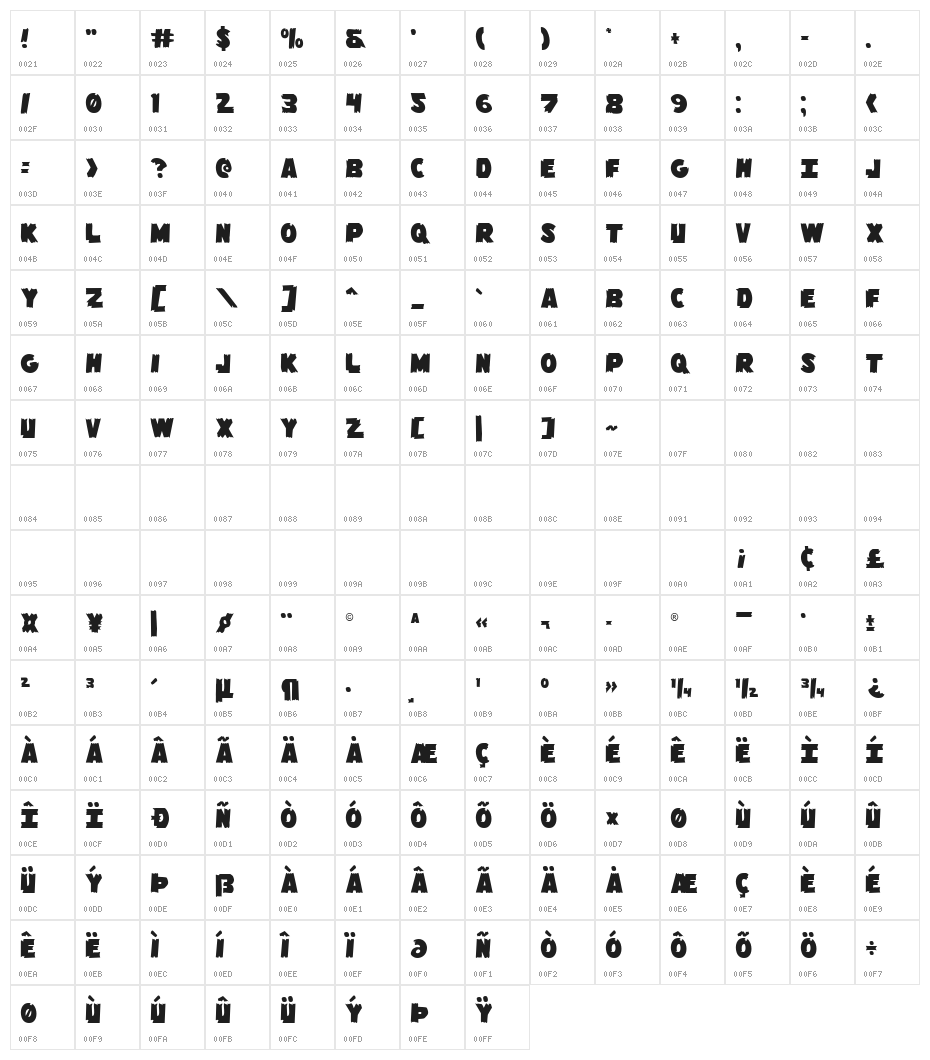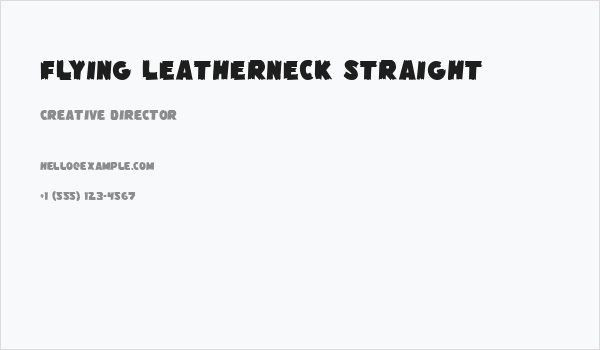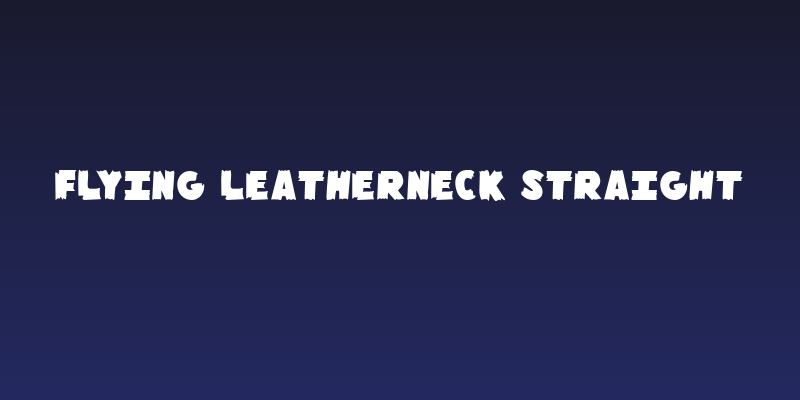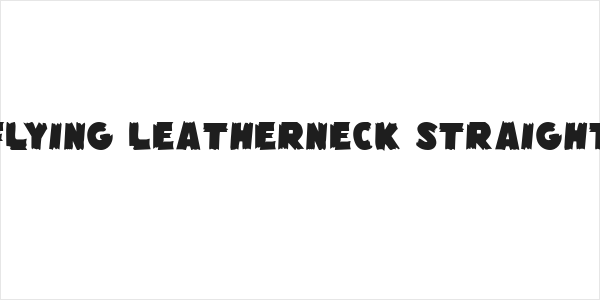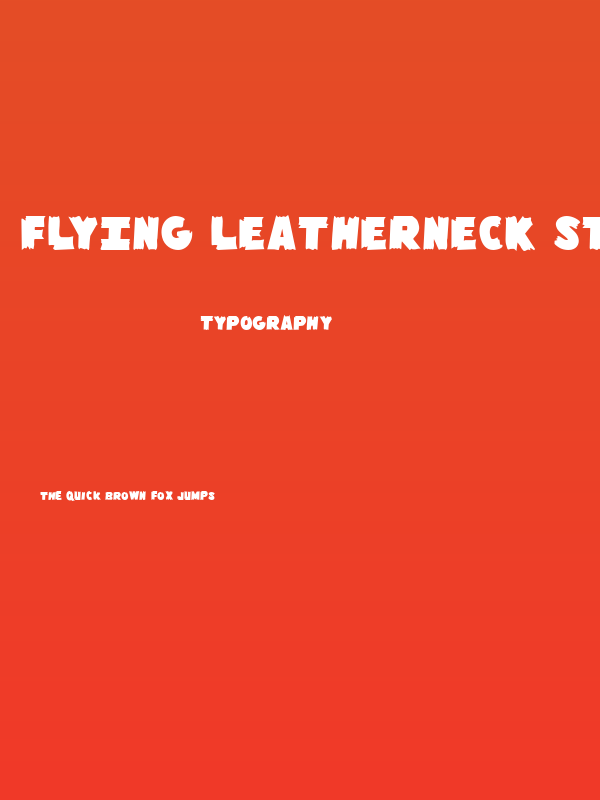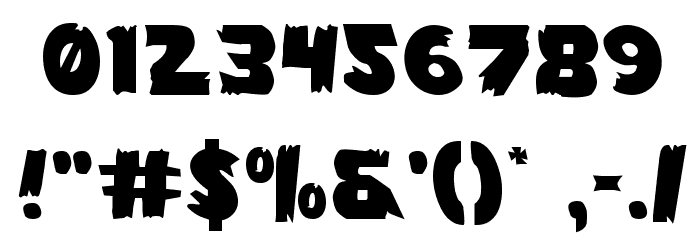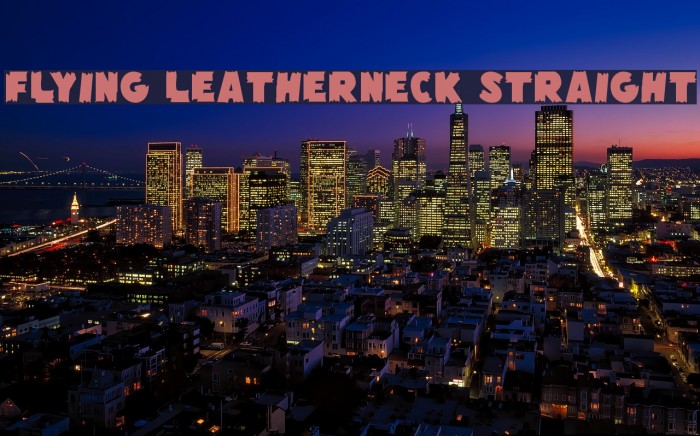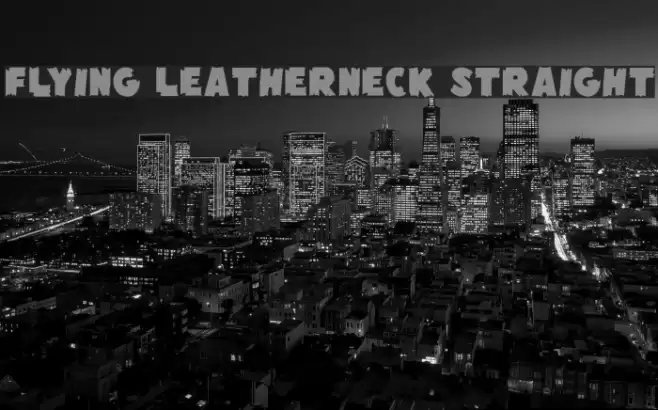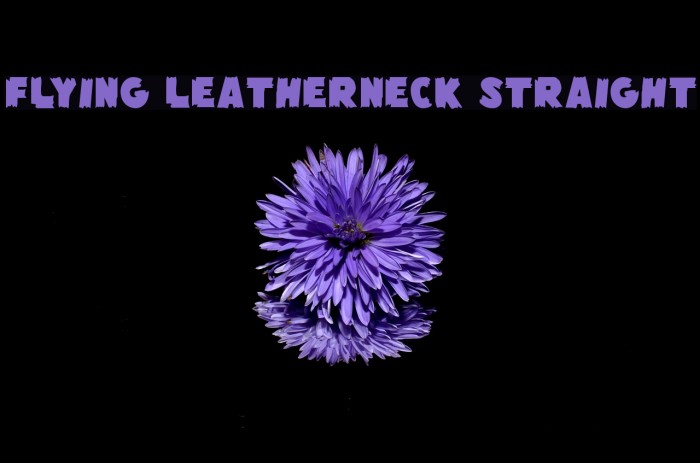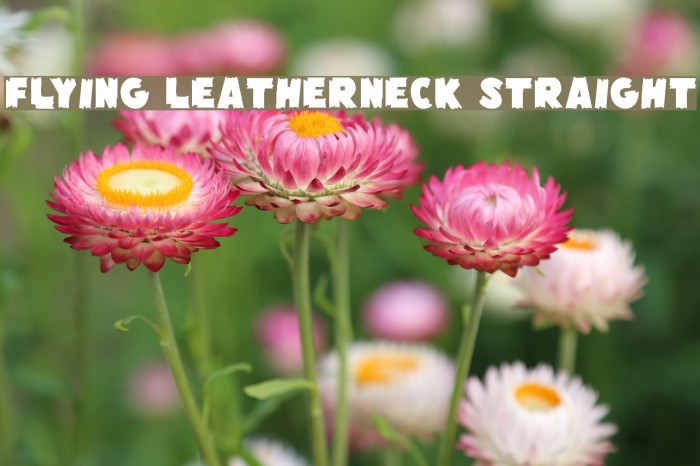
Flying Leatherneck Straight Font
Flying Leatherneck Straight Description
This font features a bold and rugged style with a distinct, jagged edge that gives it a dynamic and energetic appearance. The characters are heavily stylized, with sharp, irregular cuts that create a sense of movement and intensity. The uppercase and lowercase letters maintain a consistent design, emphasizing the font's boldness and unique character. Numbers and special characters follow the same aesthetic, ensuring a cohesive look across all glyphs. This font is ideal for projects that require a strong, impactful visual presence.
| Proposed Projects | Perfect for posters, logos, video game titles, and any design needing a bold, energetic impact. |